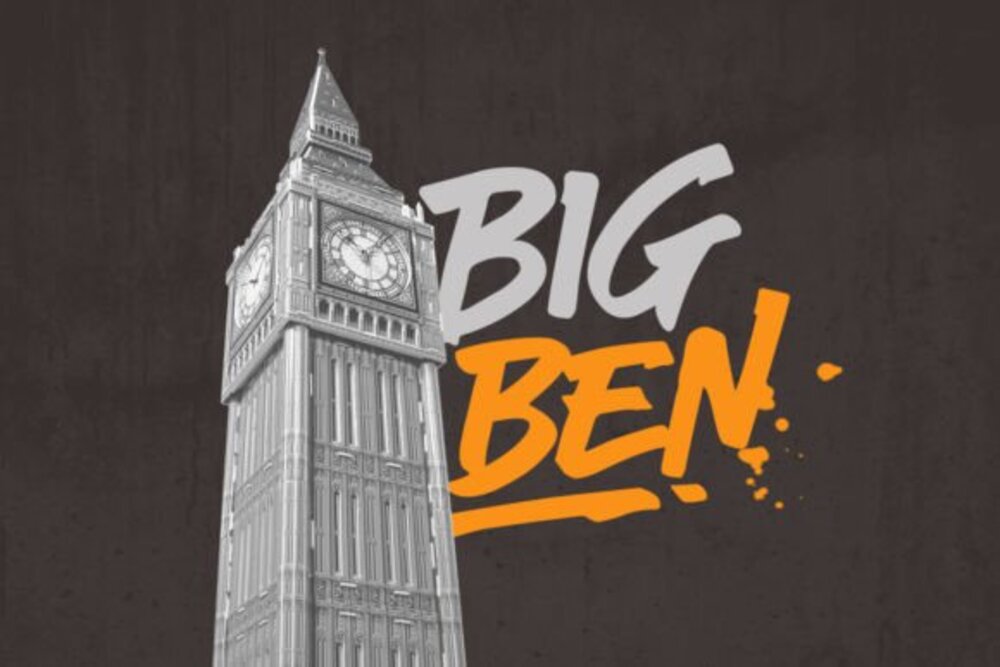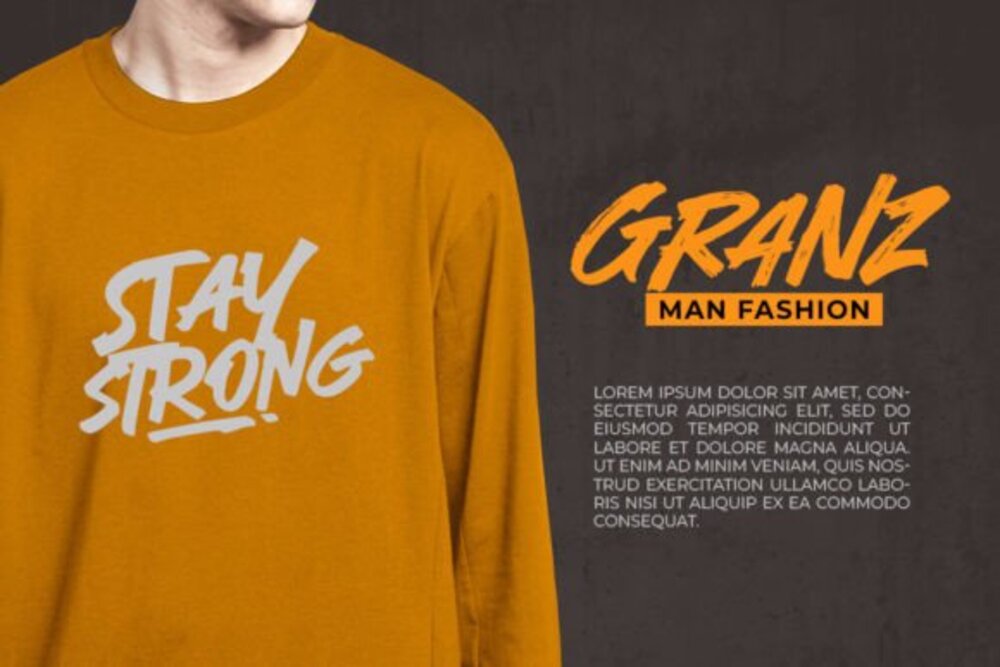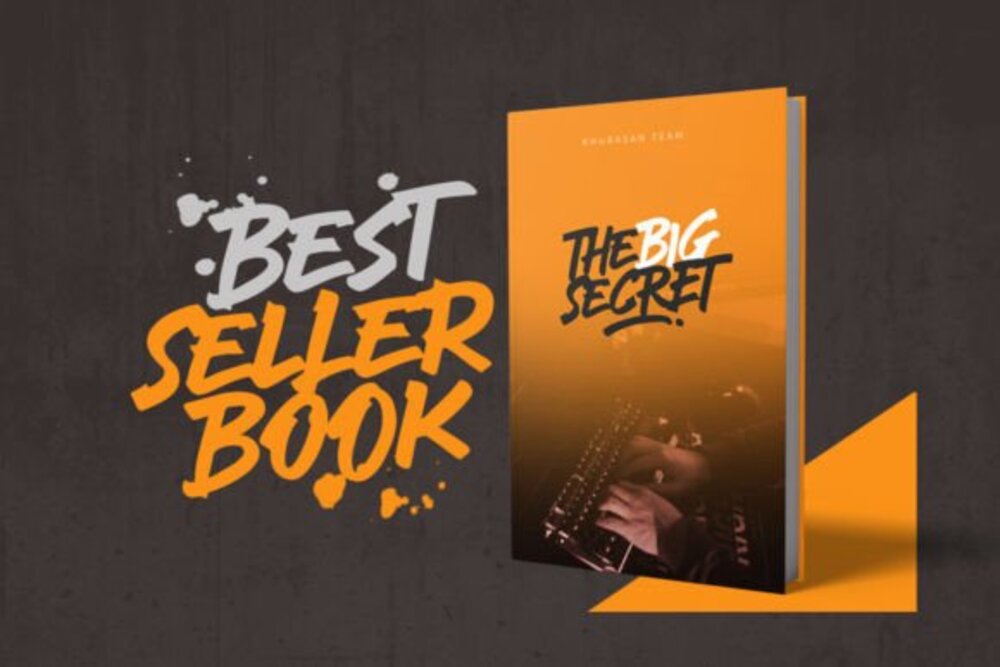
Here Brat Font
Here Brat is a playful and quirky display font with a hand-drawn, slightly messy aesthetic. It exudes a youthful and rebellious energy, perfect for projects that embrace a bit of attitude. Ideal for casual branding, informal designs, and anything that needs a touch of fun and imperfection, Here Brat adds a unique and personal touch. It’s great for designs aimed at a younger audience.